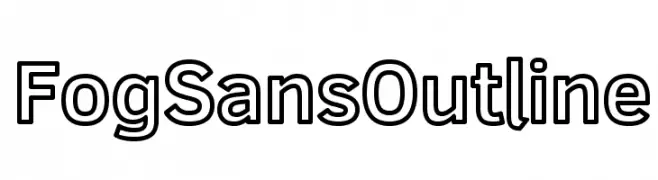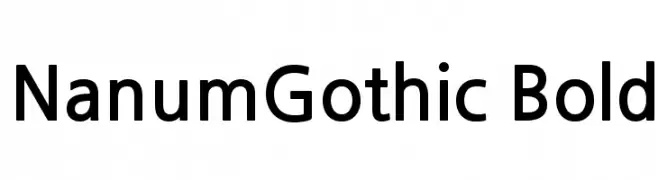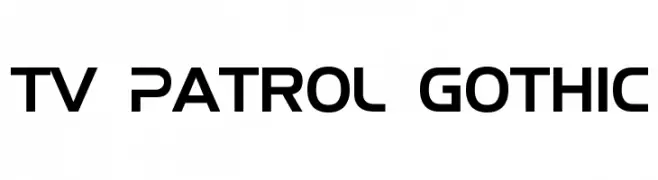
A bold, modern sans-serif font with excellent readability and uniform design.
A modern sans-serif font with open, rounded letterforms and uniform stroke thickness.
A modern, italic sans-serif font with a clean and dynamic style.
A bold, modern sans-serif font with excellent legibility and uniform stroke width.
A modern sans-serif outline font with an italic style, offering a clean and dynamic look.
A modern sans-serif outline font with clean lines and balanced proportions.
A bold, italicized sans-serif font with a modern and dynamic style.
A clean, modern sans-serif font with geometric letterforms and uniform stroke width.
A sleek, modern light italic font with smooth, dynamic strokes.